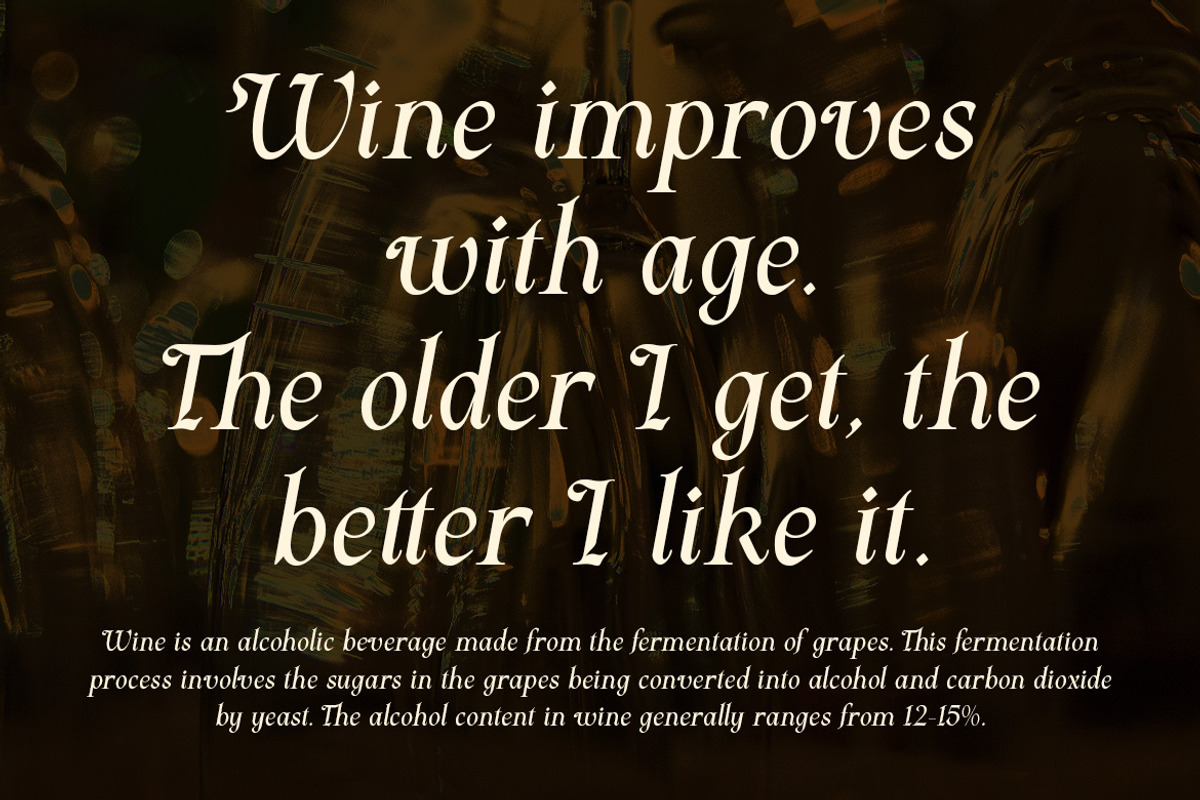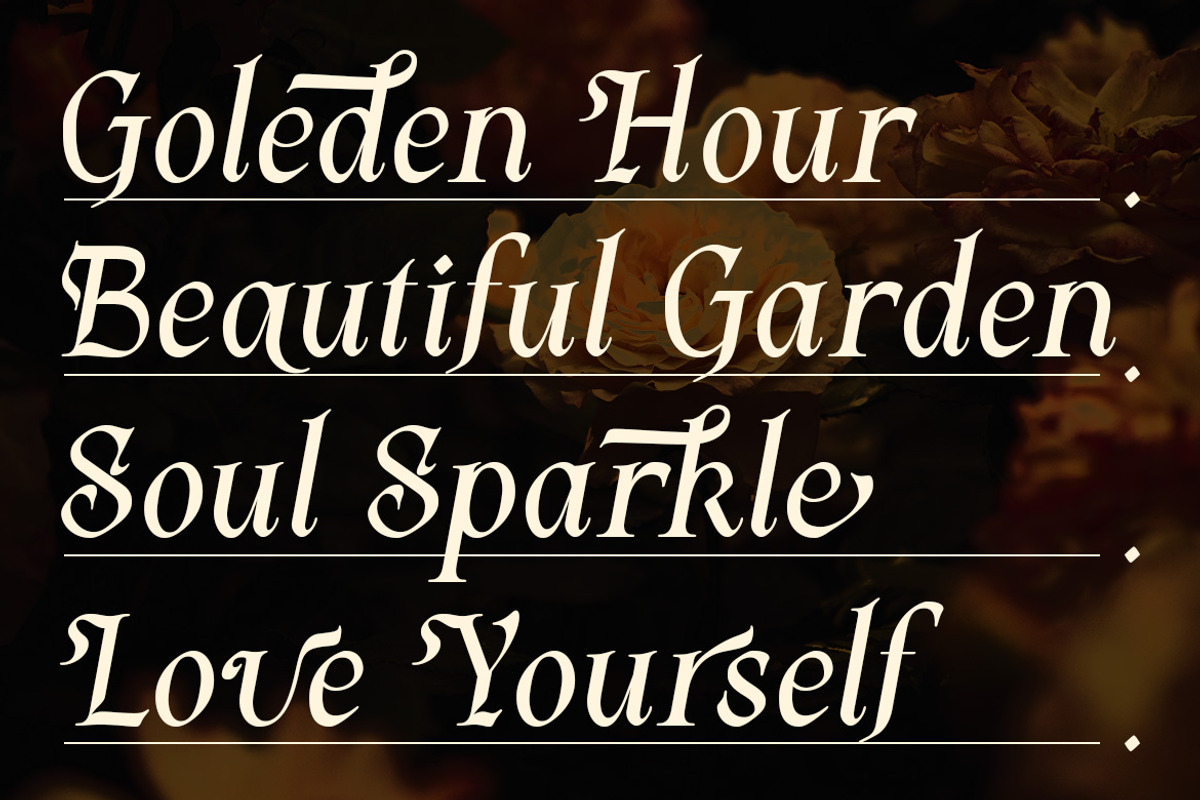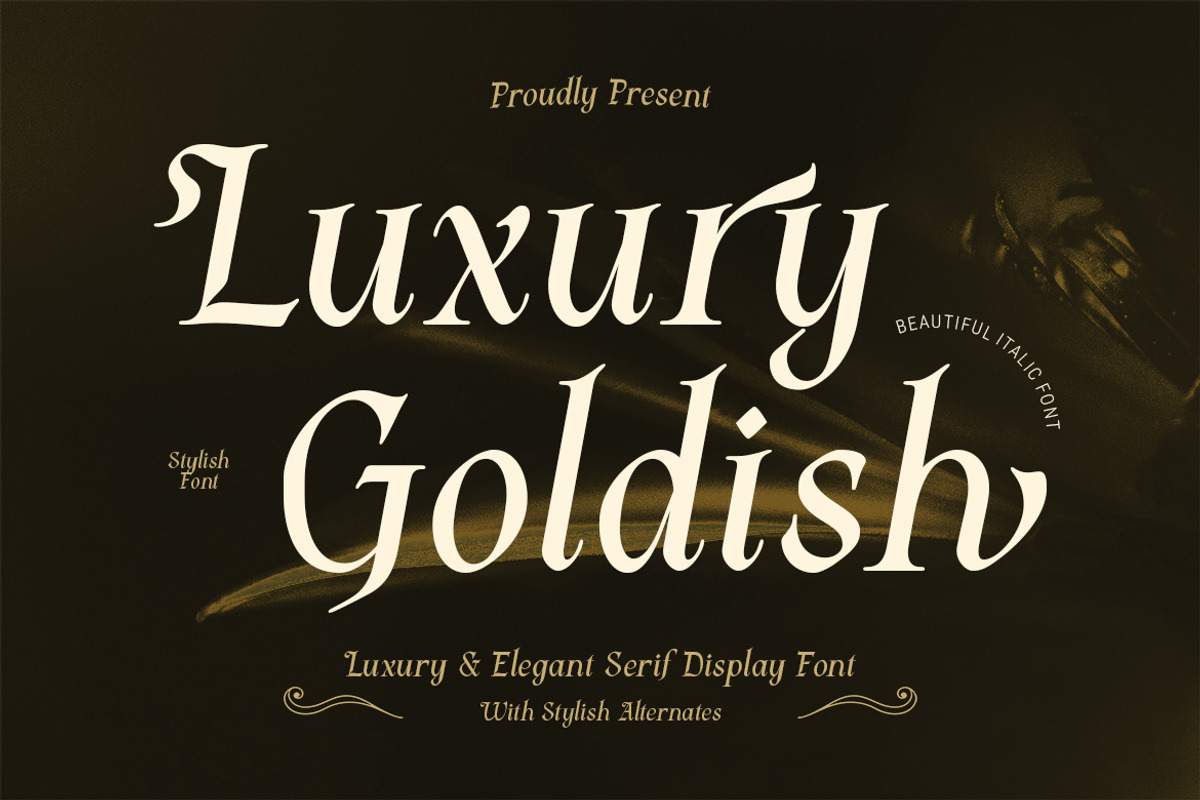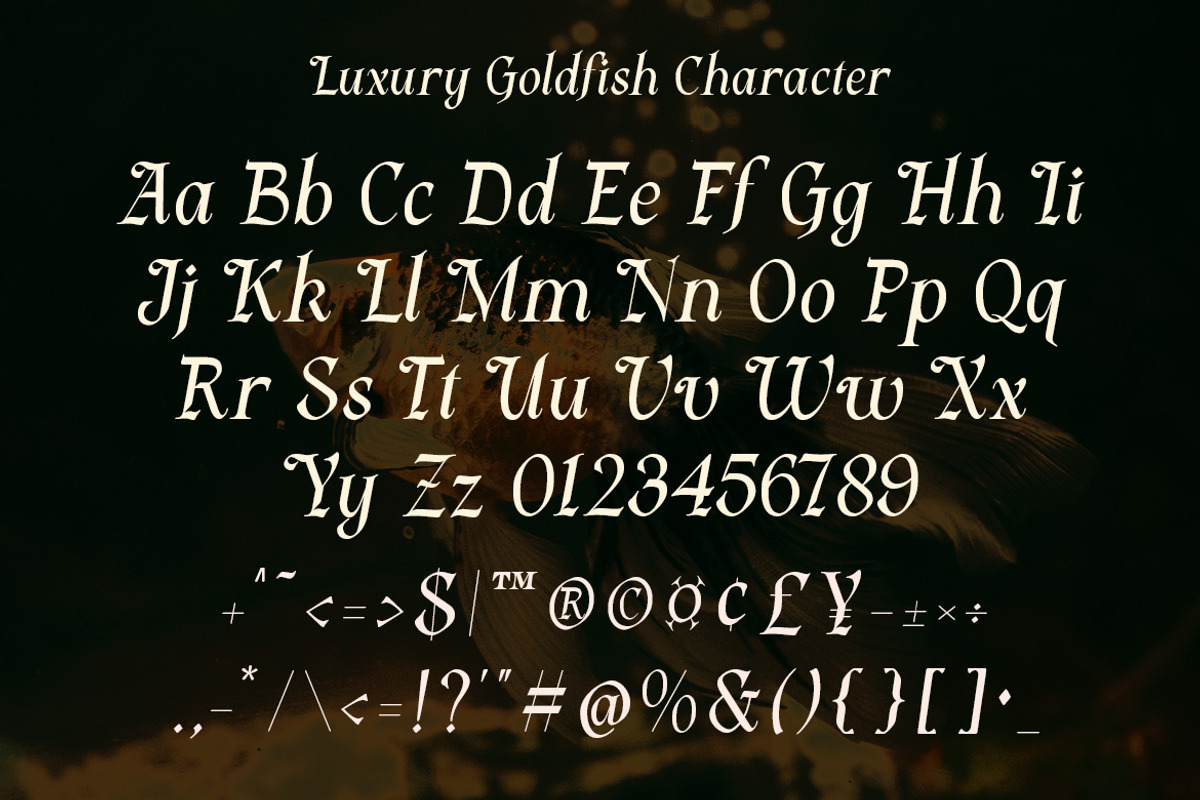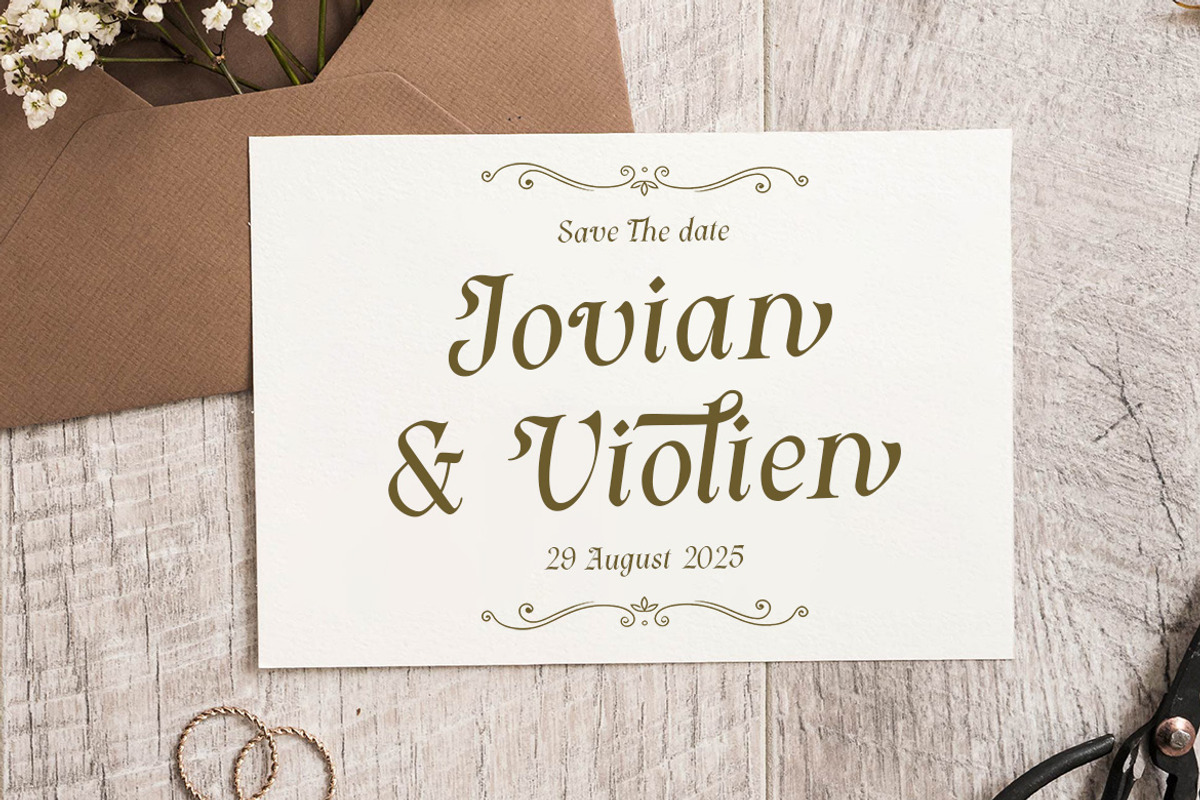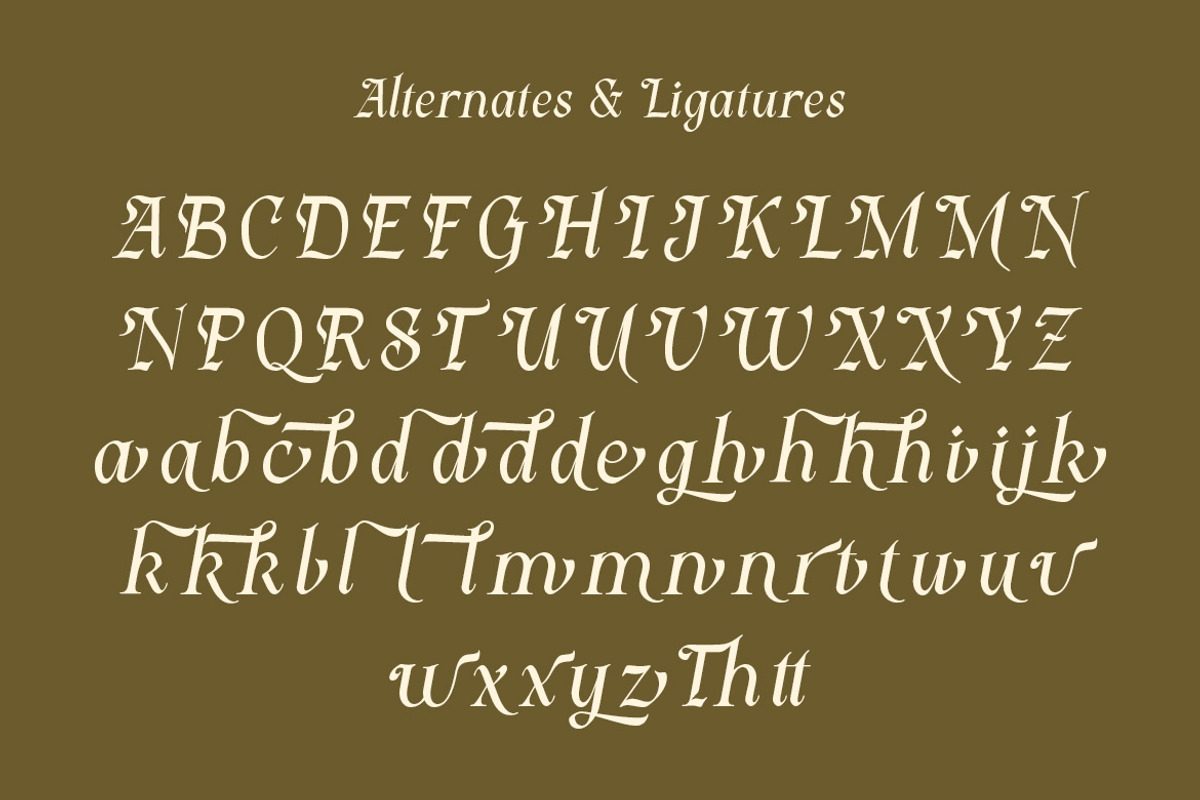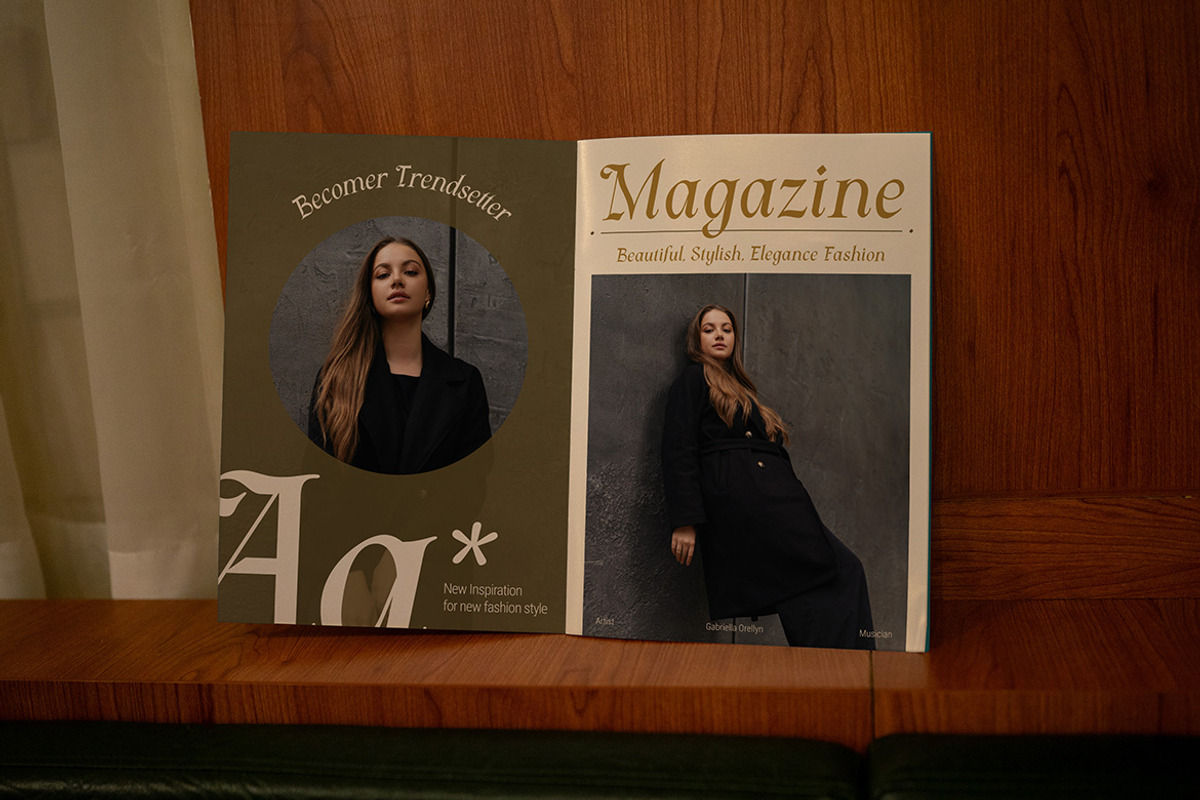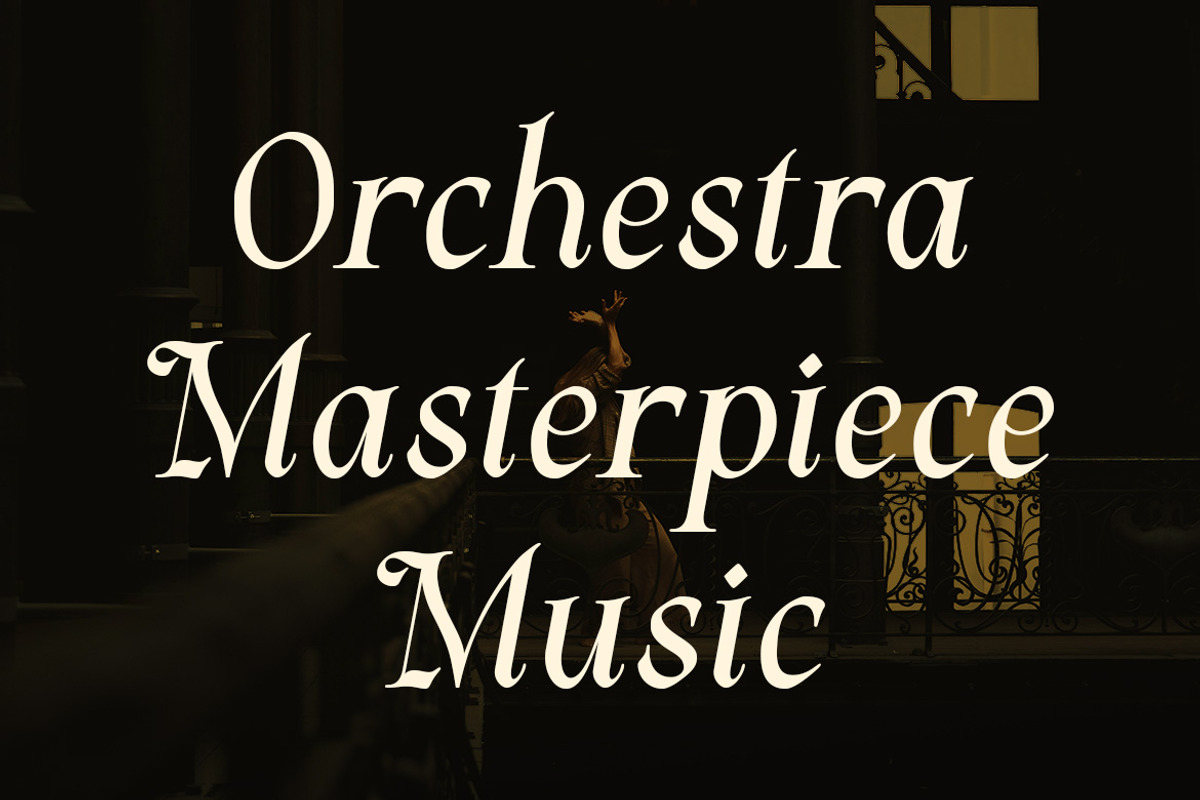
Luxury Goldish – Elegant Serif Font
Luxury Goldish is a refined serif display font that embodies sophistication and timeless beauty. Designed to bring a sense of elegance and prestige, this typeface is perfect for high-end branding, editorials, invitations, packaging, and luxury-themed projects. With stylish alternates and graceful letterforms, Luxury Goldish offers versatility for both classic and modern design needs. Its balance of strength and refinement makes it an ideal choice for creating impactful logos, premium labels, and striking typographic headlines. A font that effortlessly elevates your designs, Luxury Goldish is crafted to make a lasting impression.
* Uppercase Letters
* Numbers & Punctuation
* Ligature & Alternate Character
* Unique Hand-Drawn Style